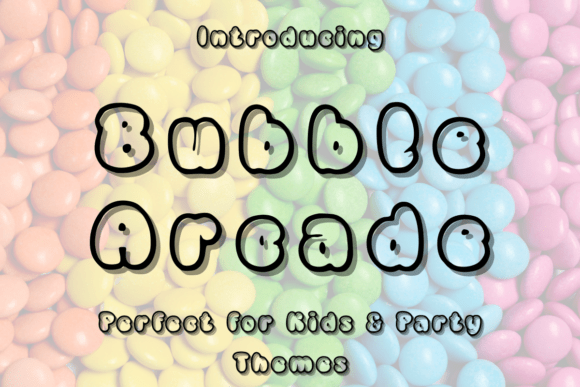
Get Ready to Level Up Your Designs with the Bubble Arcade Font
Have you ever sat in front of an old arcade machine, mesmerized by the colorful graphics and nostalgic charm of classic video games? For designers, those retro vibes are a goldmine of inspiration, and the Bubble Arcade Font is the perfect tool to tap into that nostalgia.
This bold, display font is a love letter to vintage arcade games and pixel art, with a style that’s both playful and eye-catching. Whether you’re designing birthday invitations, children’s products, posters, or packaging, the Bubble Arcade Font is a versatile choice that’s sure to delight. And with its full compatibility with popular design software like Photoshop, Illustrator, and Cricut, you can bring your retro-inspired ideas to life with ease.
Bubble Arcade Font Key Features
- Character Set: The font features a unique set of characters, including uppercase and lowercase letters, numbers, and special symbols, making it suitable for a variety of uses.
- Unique Characteristics: The Bubble Arcade Font features a distinctive, retro-style design with rounded shapes and a playful feel, making it ideal for creating eye-catching and nostalgic graphics.
Bubble Arcade Font Review
As a designer, I was excited to try out the Bubble Arcade Font and see if it would bring some retro charm to my projects. Here’s my honest review:
- Unique aesthetic: The Bubble Arcade Font has a distinct, hand-drawn feel that’s perfect for creating a retro arcade vibe.
- Multi-language support: The font includes a wide range of languages, making it a great choice for international projects.
- Limited expressiveness: While the font has a unique aesthetic, it may not be suitable for projects that require a lot of expressiveness or subtlety in typography.
- Some characters may look similar: As with many fonts, some characters (e.g. the numbers 1 and 7) may be difficult to distinguish from one another.
Overall, the Bubble Arcade Font is a great choice for projects that require a retro arcade vibe. While it may not be the most versatile font, it’s a fun and unique option that’s sure to add some personality to your designs.
Tips for Getting the Most Out of the Bubble Arcade Font
To get the most out of the Bubble Arcade font, try the following:
- Use it sparingly to add a touch of whimsy to your design.
- Pair it with bold or italic fonts to create visual interest.
- Experiment with different font sizes and colors to achieve the desired effect.
The Bubble Arcade font is perfect for:
- Creating playful and eye-catching headings.
- Adding a touch of nostalgia to your design.
- Creating retro-style graphics and illustrations.